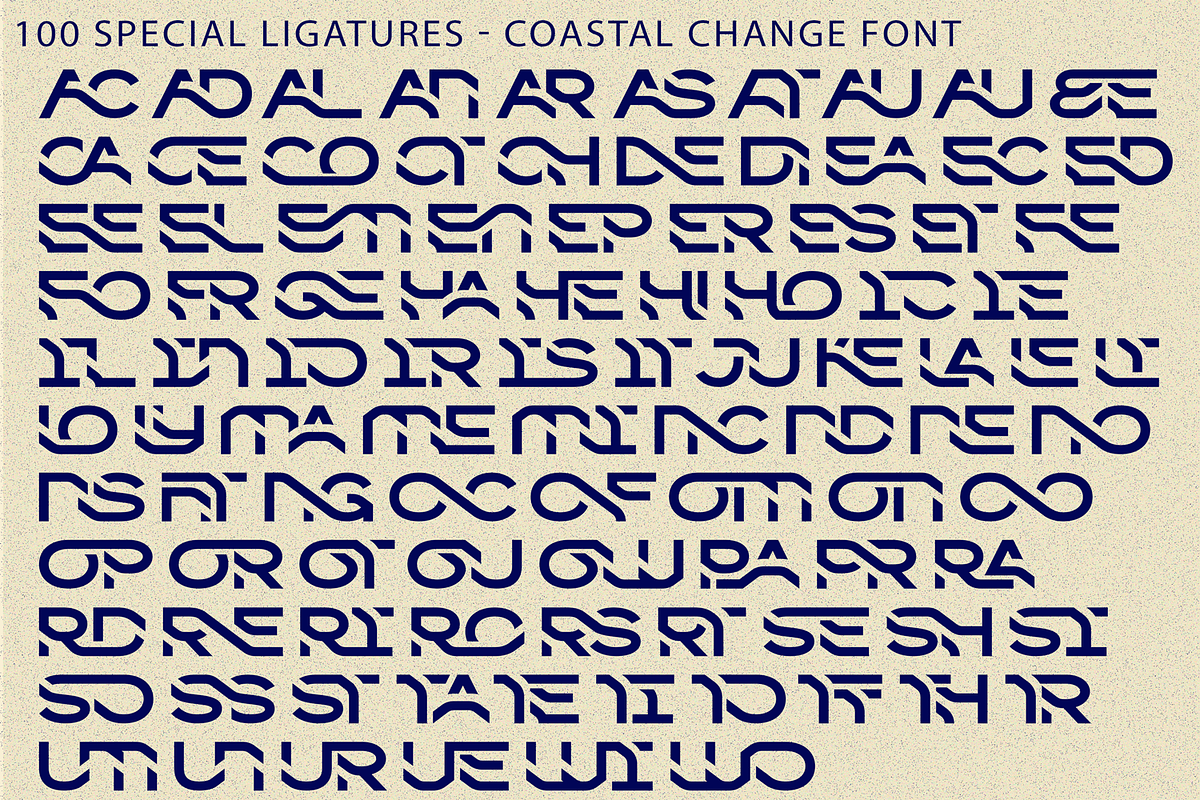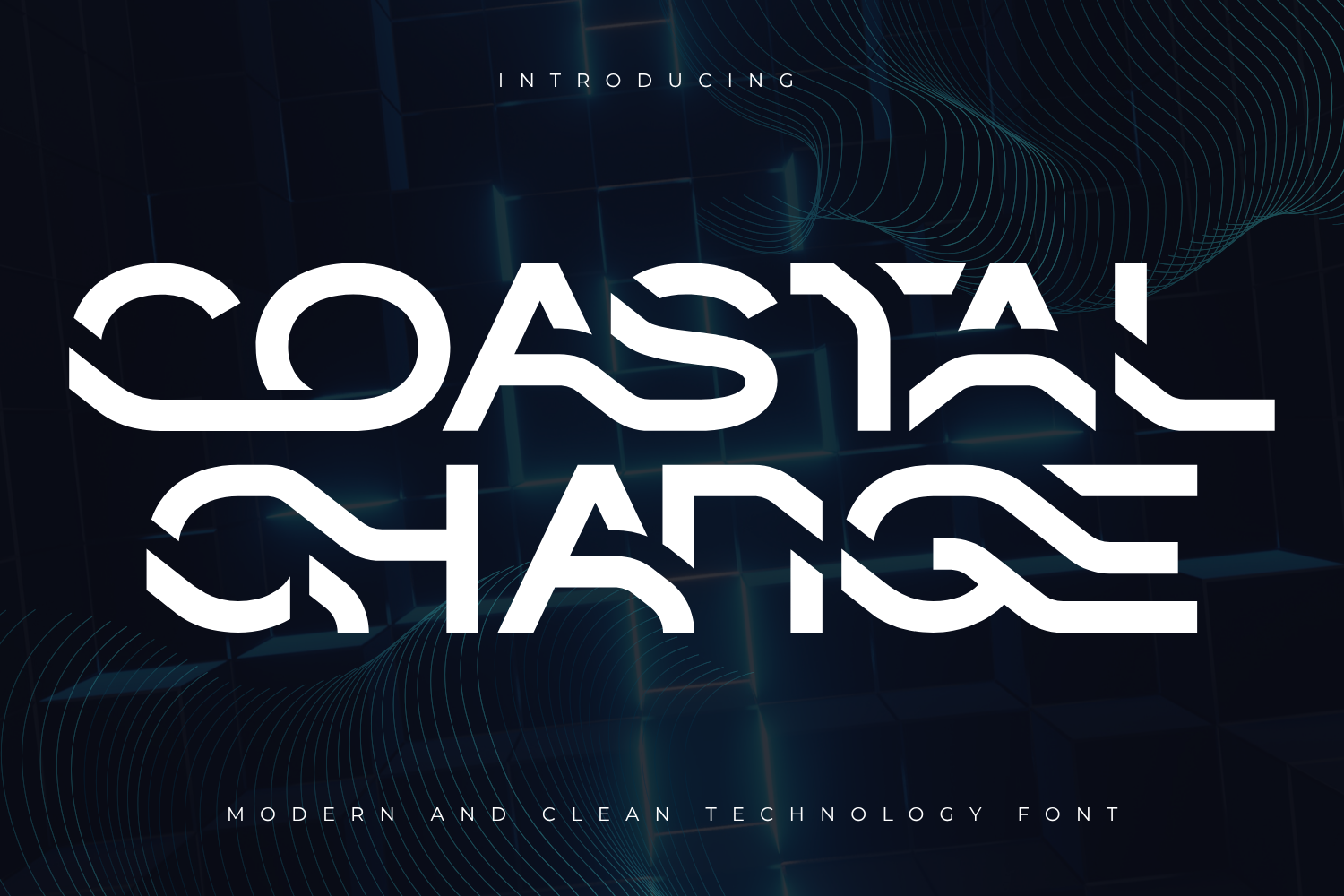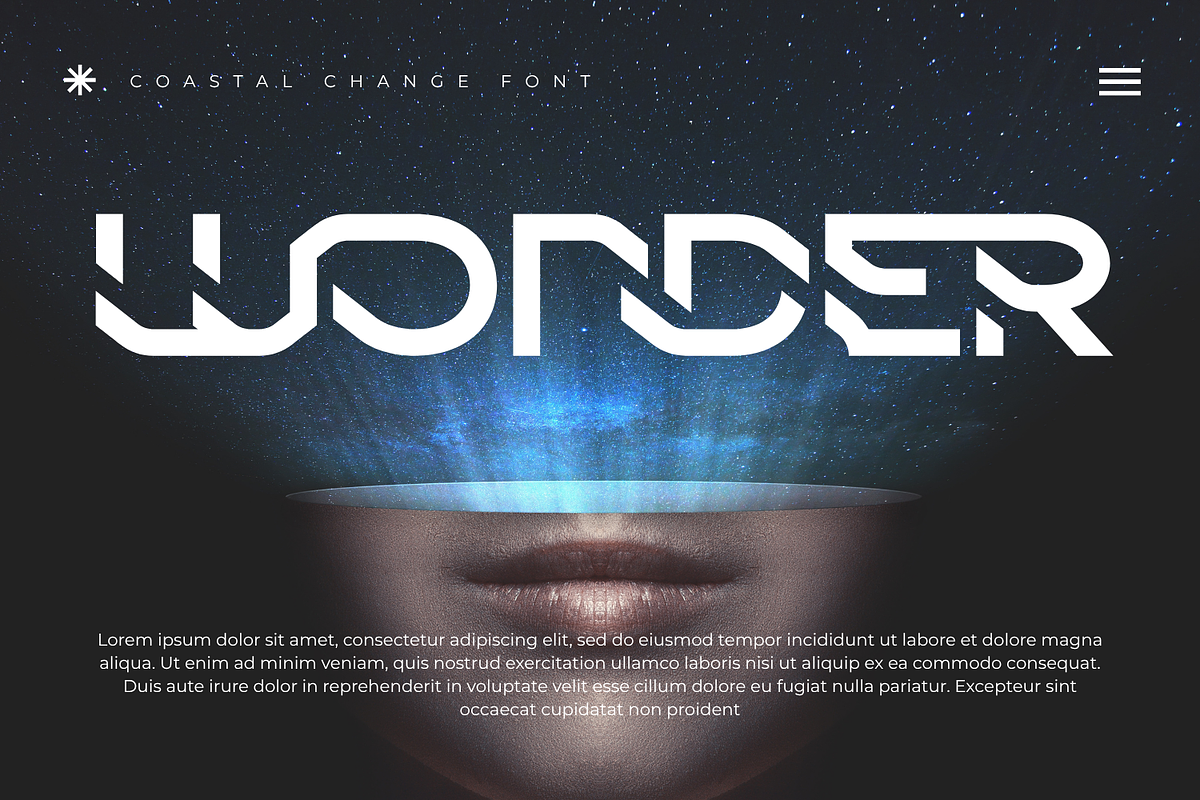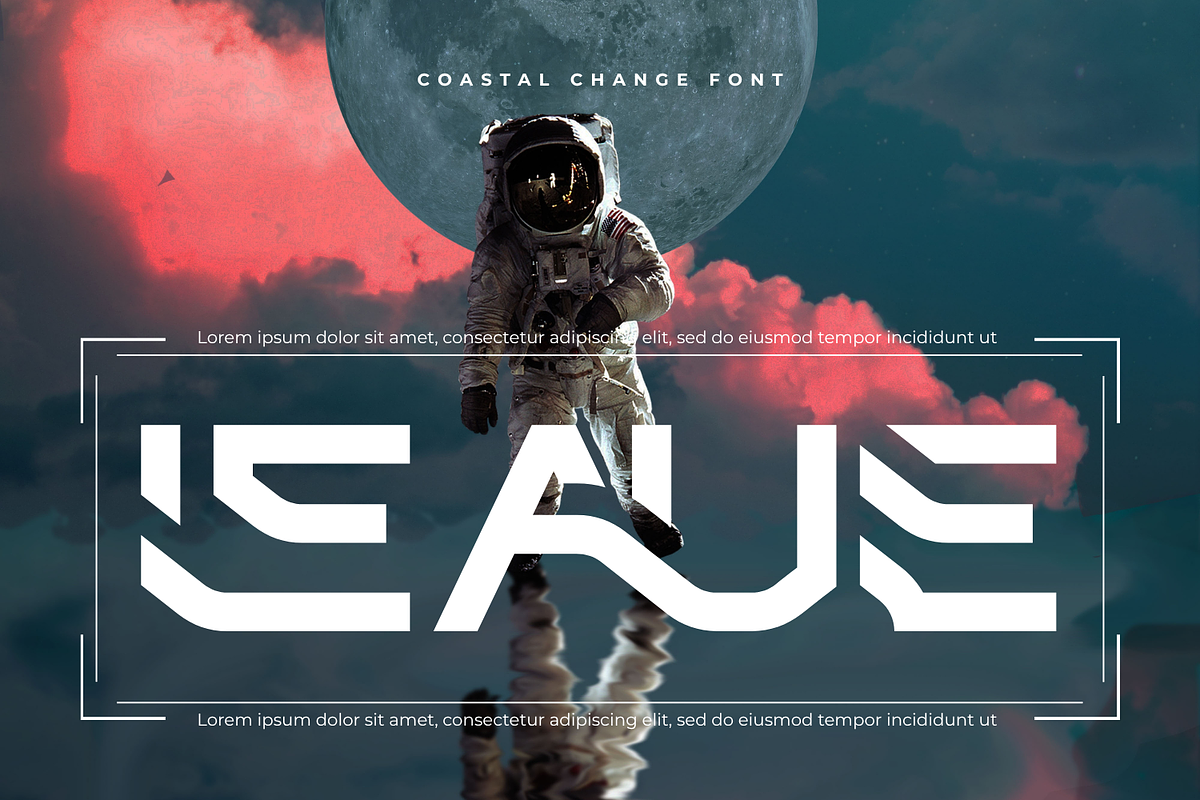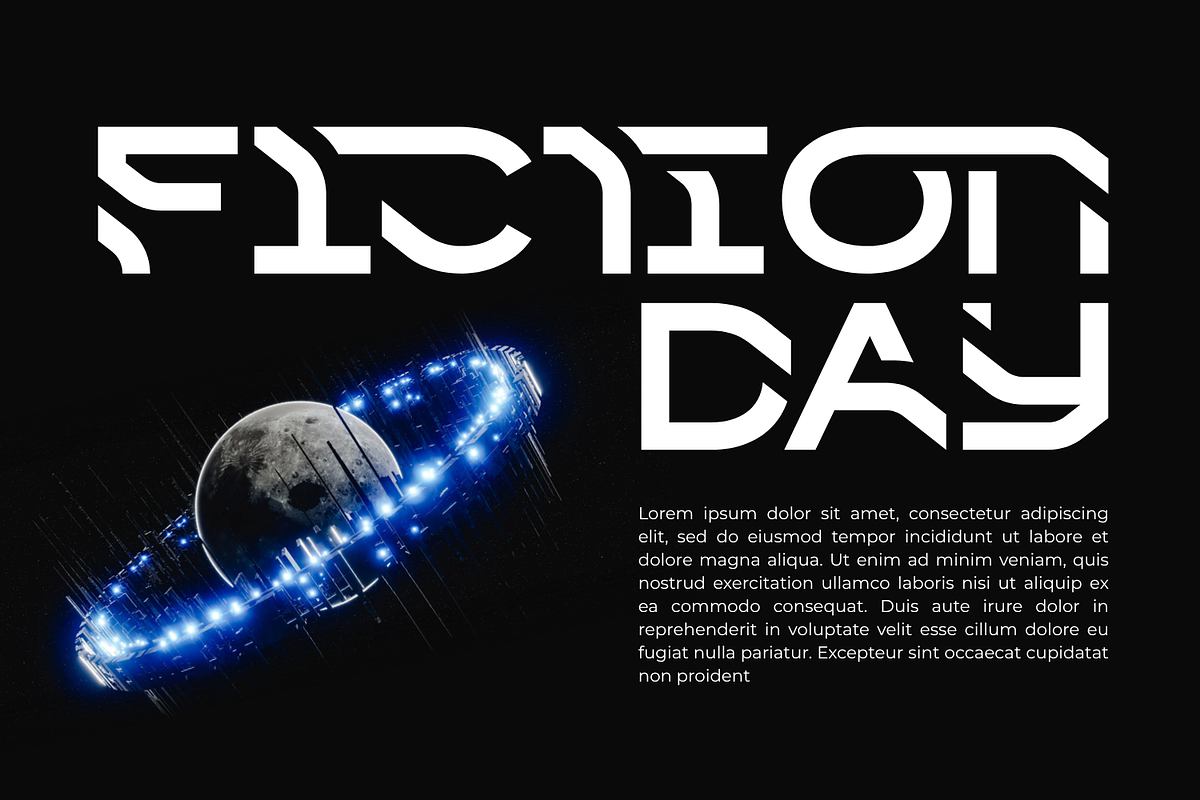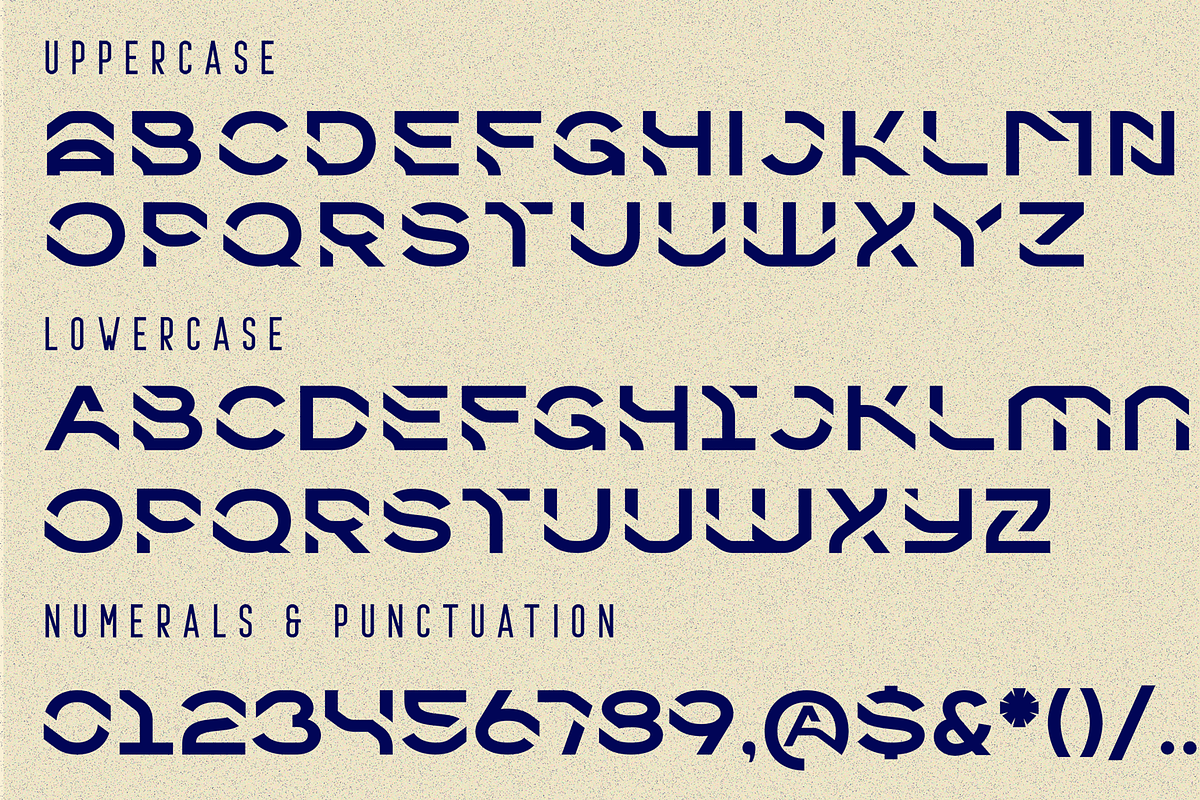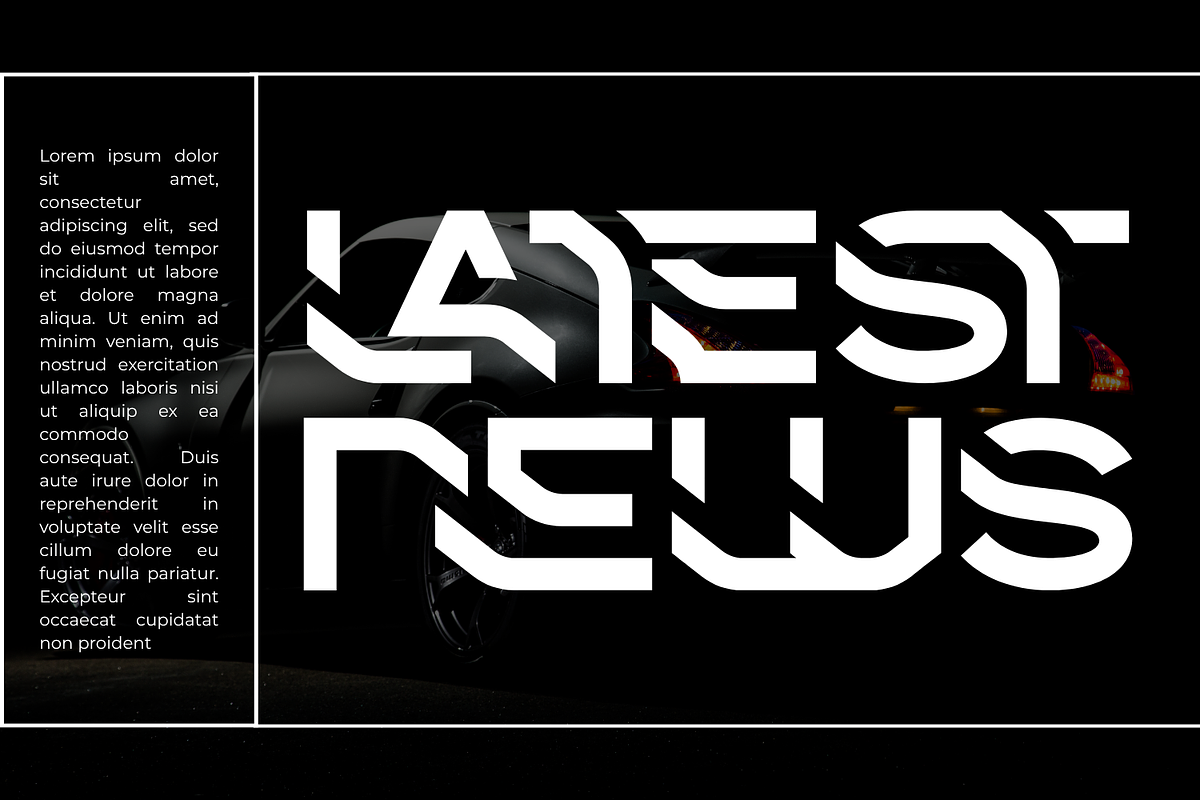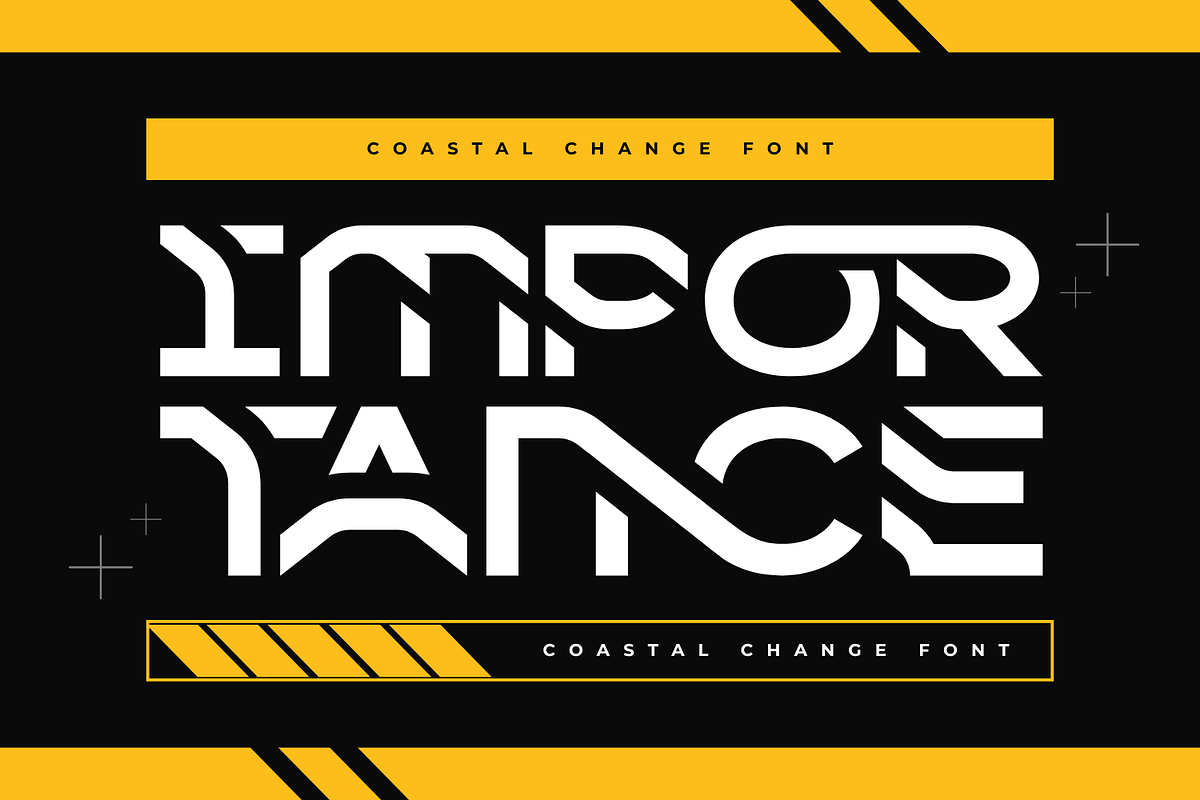
Coastal Change - Futuristic Font
Coastal Change - Futuristic Font – Futuristic Tech & Circuit Display Font, futuristic display font inspired by high-tech circuit boards, cybernetic pipelines, and modern streamliner aesthetics. Engineered with a unique modular structure, this typeface seamlessly blends smooth tubular curves with precision diagonal cuts to deliver an advanced, high-tech visual experience.
Its wide, low-profile stance and fluid letterforms give every word a strong sense of continuous motion and innovation. Designed specifically for commanding titles and modern visual identities, Coastal Change is the ultimate choice for AI & robotics branding, esports logos, gaming UI, techwear apparel, synthwave album art, and cinematic sci-fi posters.
🔤Features:
Uppercase & Lowercase Letters
Around 100 Special Ligatures & Alternates
Accented Characters for multilingual support
🔤About 100 ligatures combined with Stylistic Alternates Font:
ac ad al an ar as at au av be ca ce ch co ct de di ea ec ed ee el em en ep er es et fe fo fr ge ha he hi ho ie ic il in io ir is it ju ke la le li ll lo ly ma me mi nc nd ne ng no nt ns oc of om on oo op or ot ou ow pa pr ra rd re ri ro rs rt se sh si so ss st ta te th ti to tr tt um un ur ve wi wo